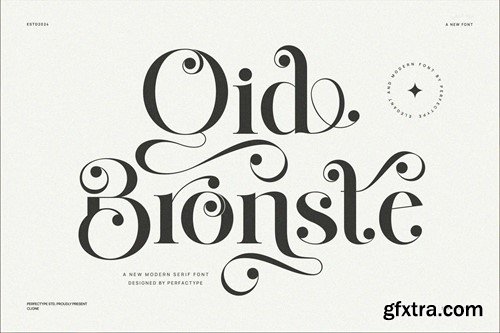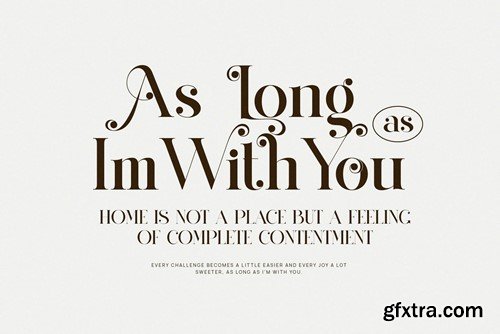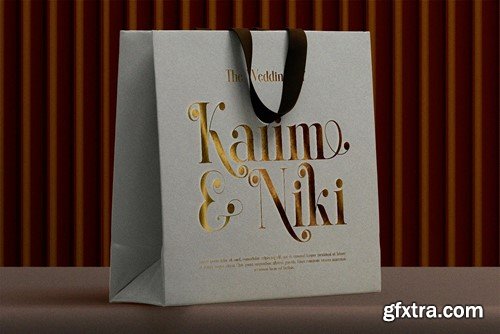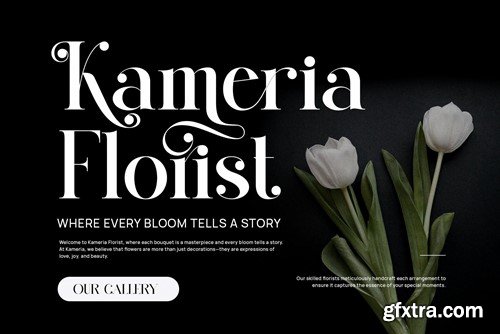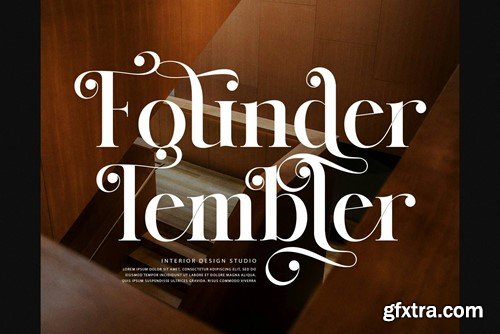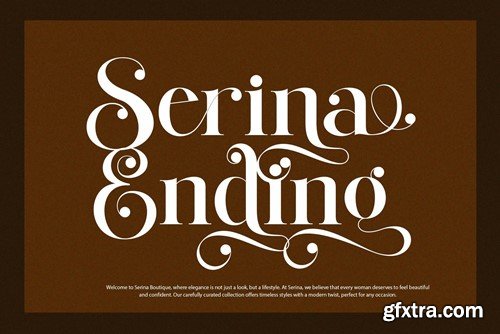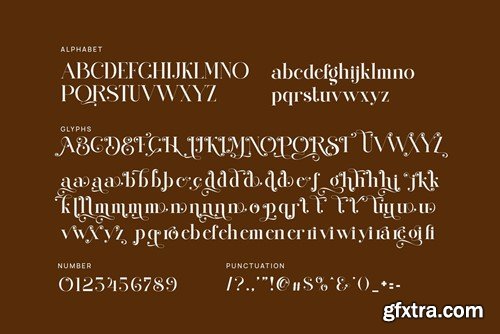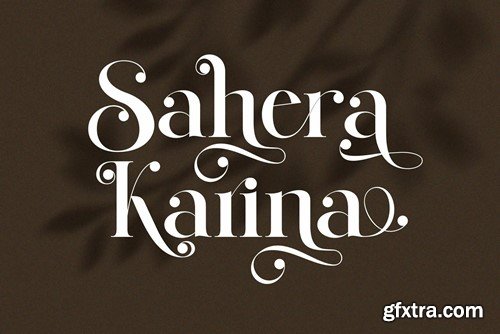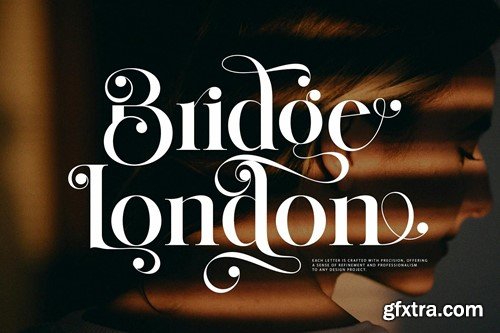
This is a very elegant and classy font for all branding and logo designs This type of serif font is made with elegance and luxury so it is very suitable for all your design uses. This type of font is very suitable for your various needs such as branding projects, logos, social media posts, advertisements, labels, product packaging, photography, wedding designs, watermarks, invitation product designs, stationery, and any project, created at a high level legibility. What's Included: Using Adobe Illustrator or Adobe Photoshop is recommended. Hope you enjoy our fonts and if you have any questions, feel free to send me a message & I'll be happy to help :)